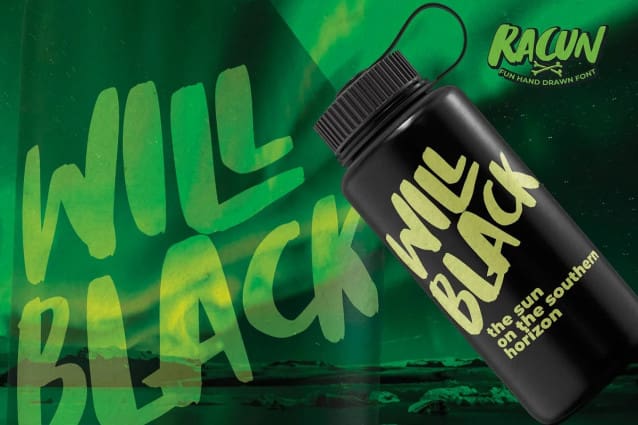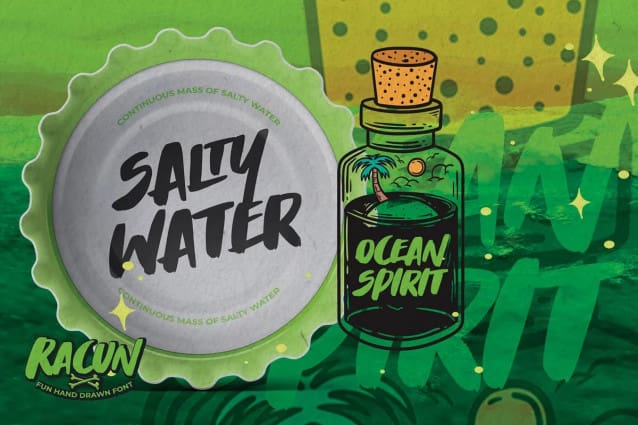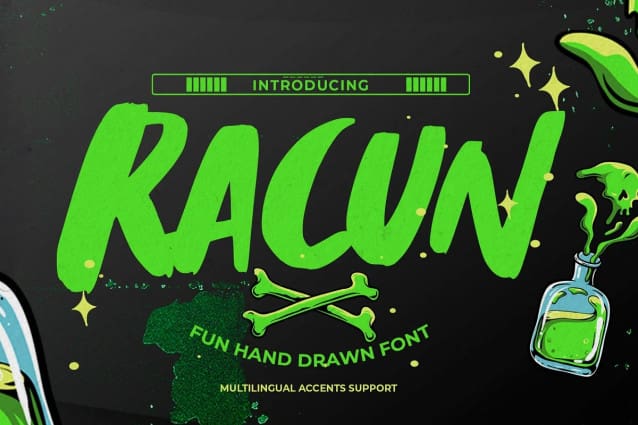
Racun Display Font
Racun Display Font, It’s Fun Hand Drawn Font is a Natural Style and Authentic classy style, this font is great for your creative projects such as watermark on photography, and perfect for logos & branding, invitation,advertisements,product designs, stationery, wedding designs,label ,product packaging, special events or anything that need handwritting taste.
Racun Display Font is a Hand Drawn feel. This handmade font will make your design has a beautiful natural touch for each details. It is perfect for any design project as Invitation,logo, book cover, craft or any design purposes,photos, photography overlays, signs, window art, scrapbooking, tags and so much more! It is perfect for any design project as Invitation,logo, book cover, craft or any design purposes. This font is PUA encoded which means you can access all of the magical glyphs with ease! It also features a wealth of special features including You can activate 15 Ligatures and 16 Alternates OpenType panel.